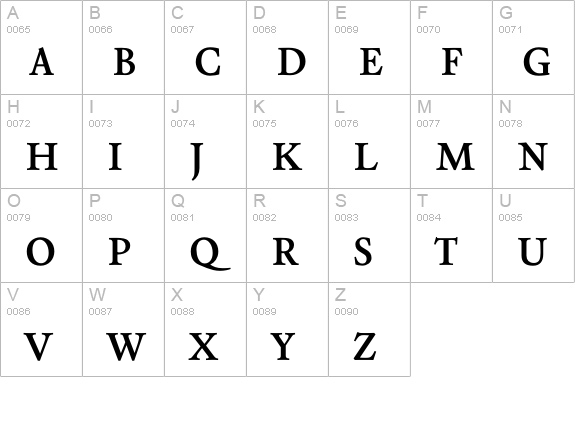
Pan DaMa Bold Font Details
Pan DaMa Bold is a strong, high-contrast variant in the Pan typeface family \xE2\x80\x94 well suited to headlines, attention-grabbing titles, and strong calls-to-action.
Introducing Pan DaMa Bold font, a captivating and versatile typeface that exudes confidence and modernity. With its bold and commanding presence, this font is perfect for making a strong statement in your designs. Pan DaMa Bold font stands out with its thick and prominent letterforms, ensuring maximum visibility and impact. Whether used for headlines, logos, or any other design element, this font effortlessly grabs attention and leaves a lasting impression. But what makes Pan DaMa Bold font even more appealing is that it is free! Yes, you read that right. This incredible font is freely available to download at FontsMarket.com, allowing you to elevate your designs without any cost. With Pan DaMa Bold font, you can effortlessly convey a sense of power, strength, and modernity in your designs. Its clean and sharp lines give it a contemporary feel, making it suitable for a wide range of projects, from branding and advertising to social media graphics and website designs. This font's versatility extends to its extensive character set, which includes uppercase and lowercase letters, numerals, punctuation marks, and special characters. This ensures that you have everything you need to create visually striking and cohesive designs. So why wait? Download Pan DaMa Bold font today from FontsMarket.com and unlock the potential to create bold and impactful designs that will captivate your audience. With its free availability and unmatched versatility, this font is a must-have for any designer looking to make their mark.